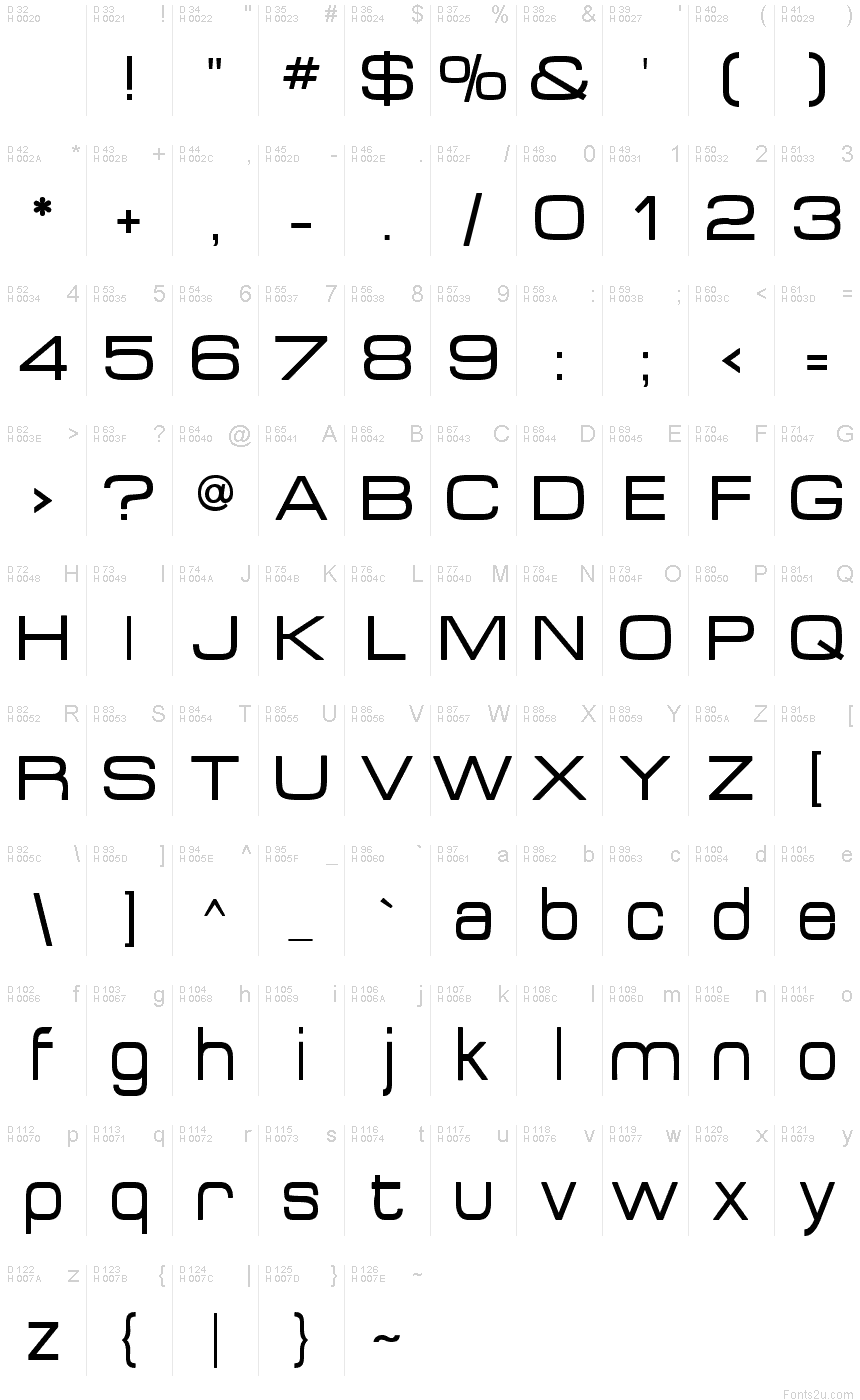
Acens
Acens is a bold, expanded sans-serif font designed by Big Jack. Its striking visual presence is defined by the seamless flow of its clean lines and generous letter spacing.
The font's expanded width and geometric shapes give it a modern, impactful aesthetic, making it well-suited for headlines, branding, and other high-visibility applications. Acens exudes a sense of strength and authority, making it an excellent choice for editorial content, corporate identities, or any design requiring a versatile, attention-grabbing typeface.
Its distinct character and legibility ensure Acens will leave a memorable impression across a range of media and formats.